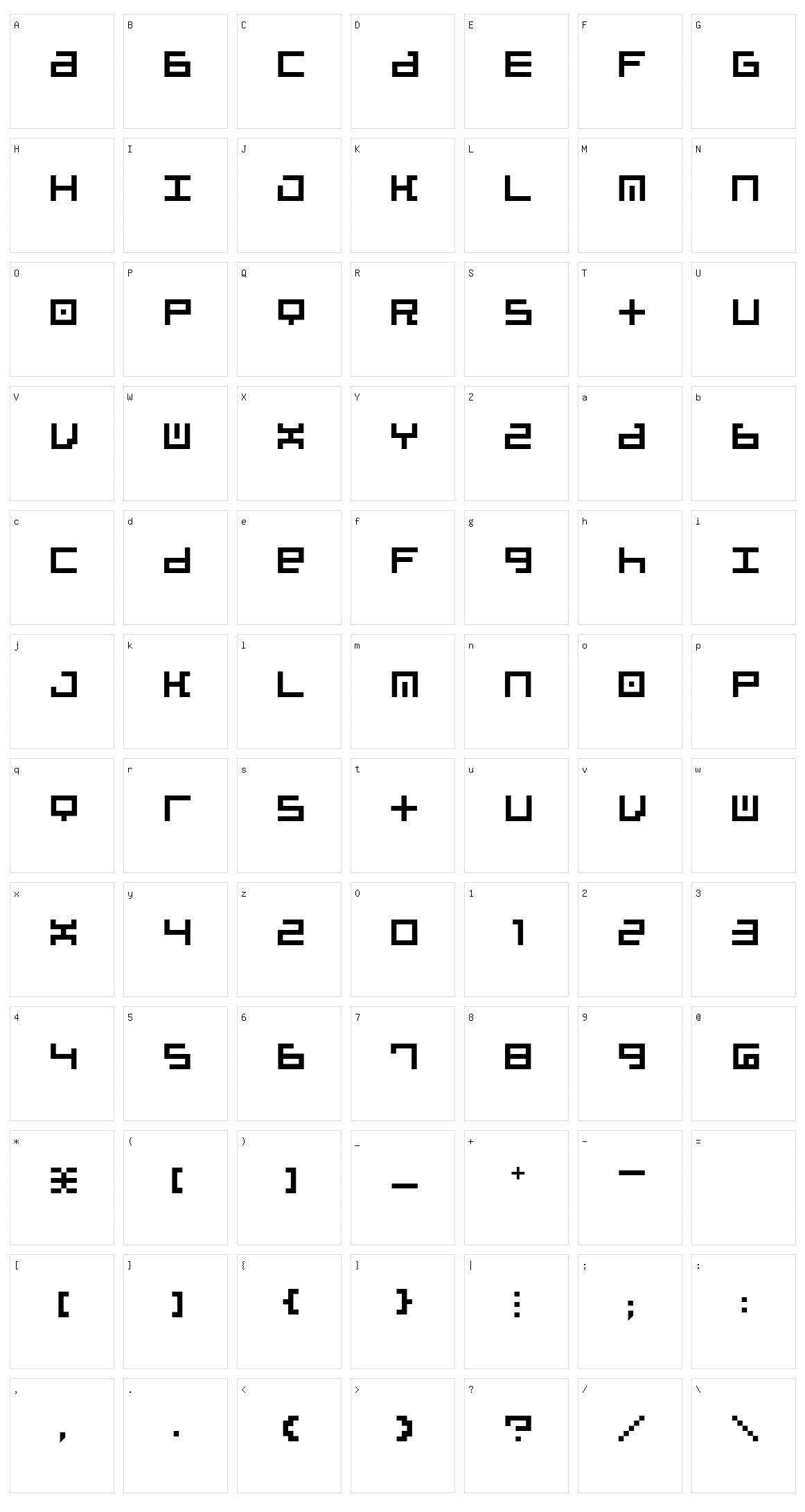
The free font Beatbox is carefully designed by ChannelZero, showcasing a thoughtful balance of creativity and usability and falls under the Square font style. When you download the ZIP file, it contains only 32.85 KB of font files, making it lightweight and quick to download. Please review the license details below to understand permitted usage and distribution rights. If license information is not available, we recommend using this font for personal projects only or contacting the author directly for commercial usage permissions.